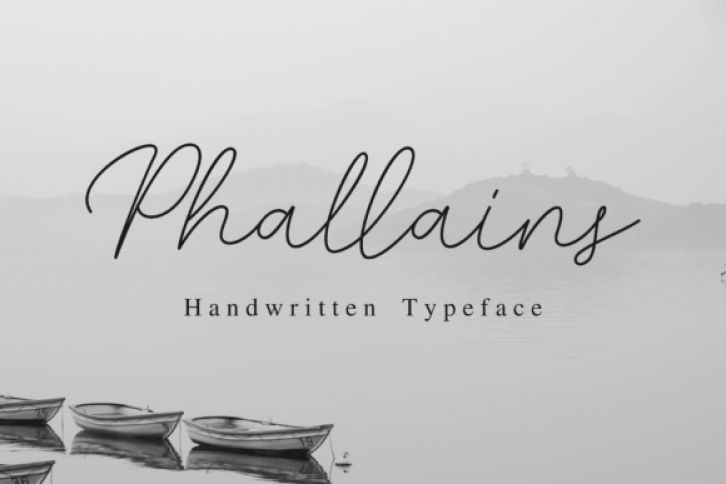
Phallain is an elegant and casual handwritten font with an incredibly friendly feel. It features gorgeous swashes and ligatures that make this script incredibly versatile. Whether you’re looking for fonts for Instagram or calligraphy scripts for DIY projects, Phallain will turn any creative idea into a true piece of art!